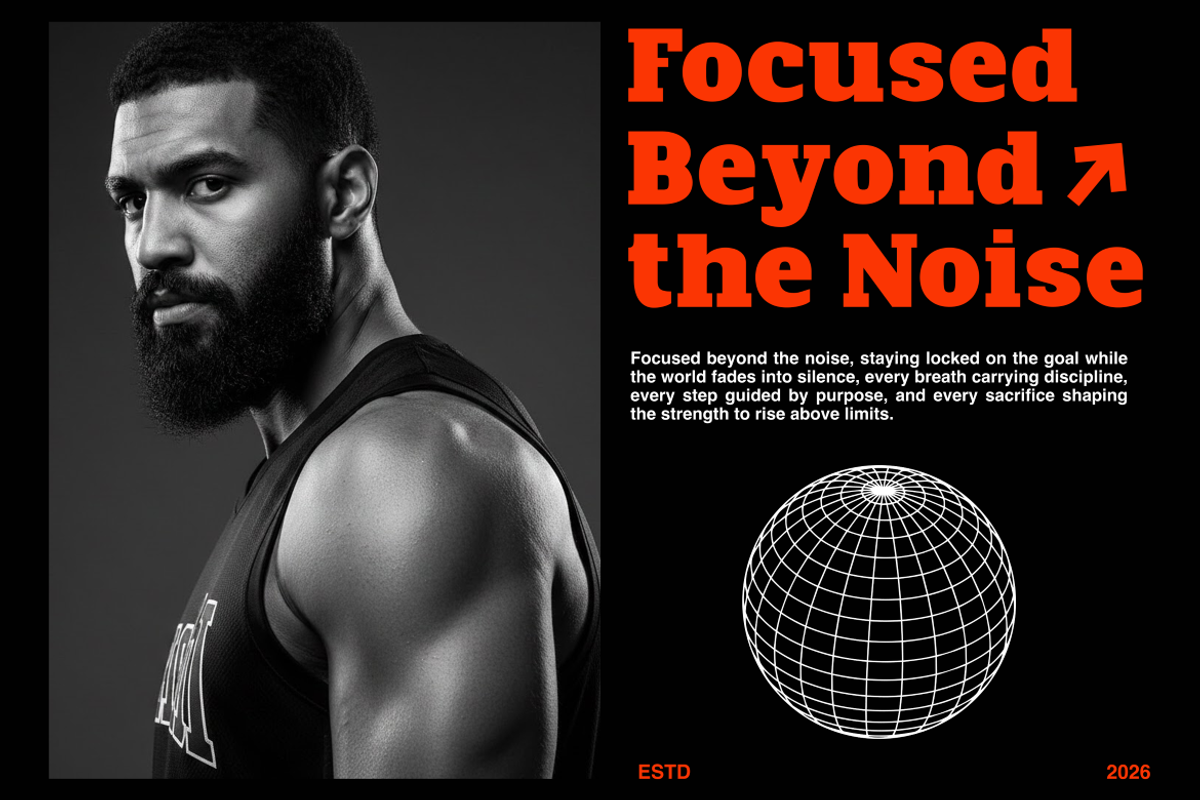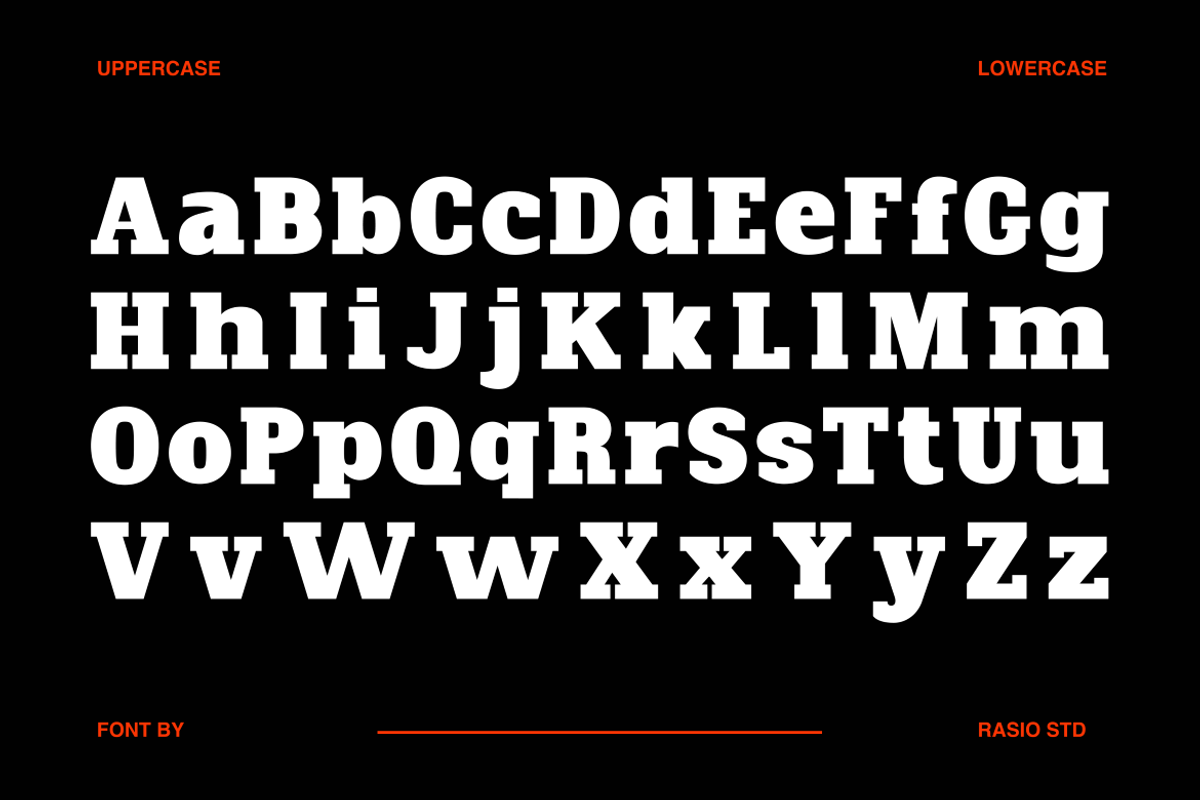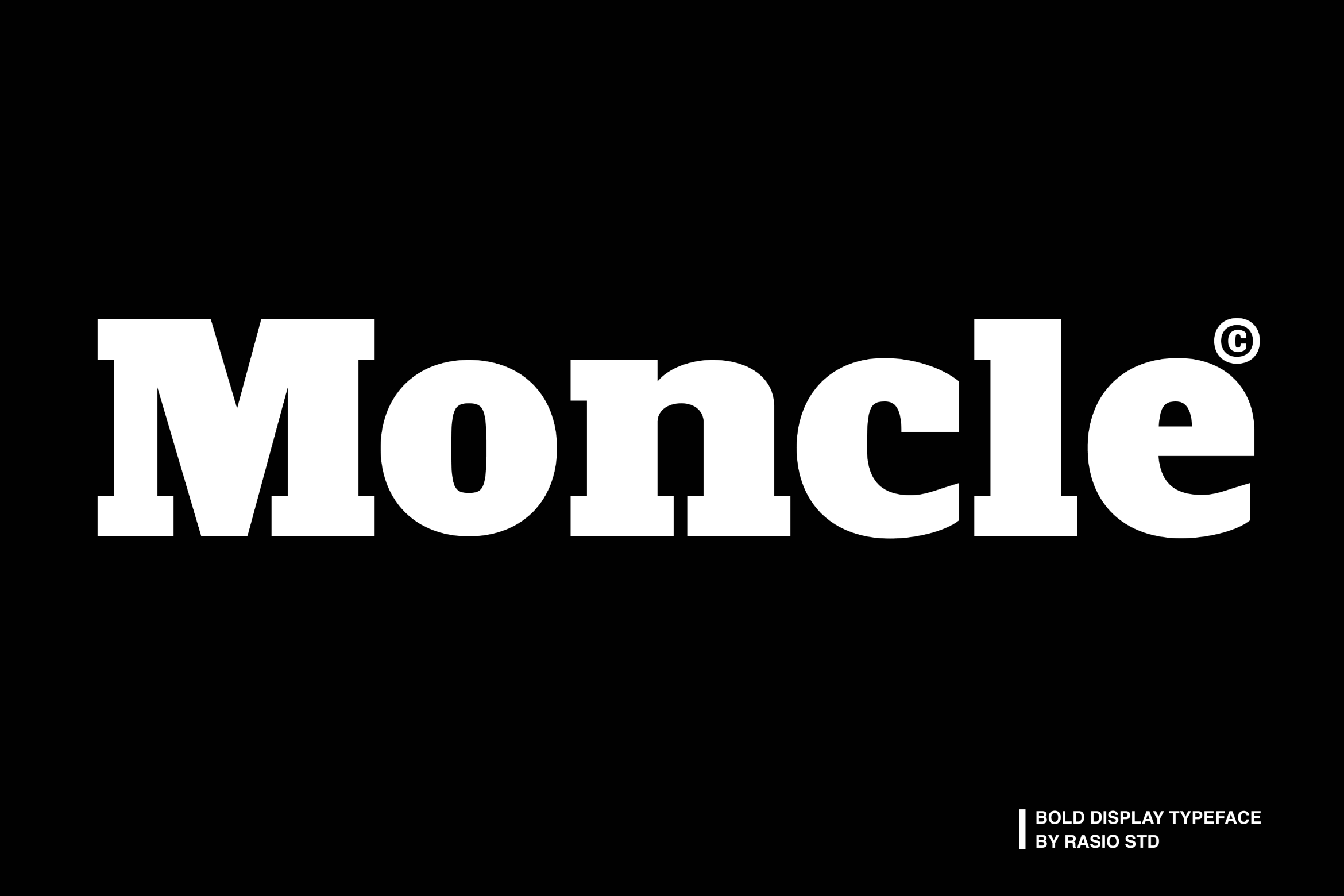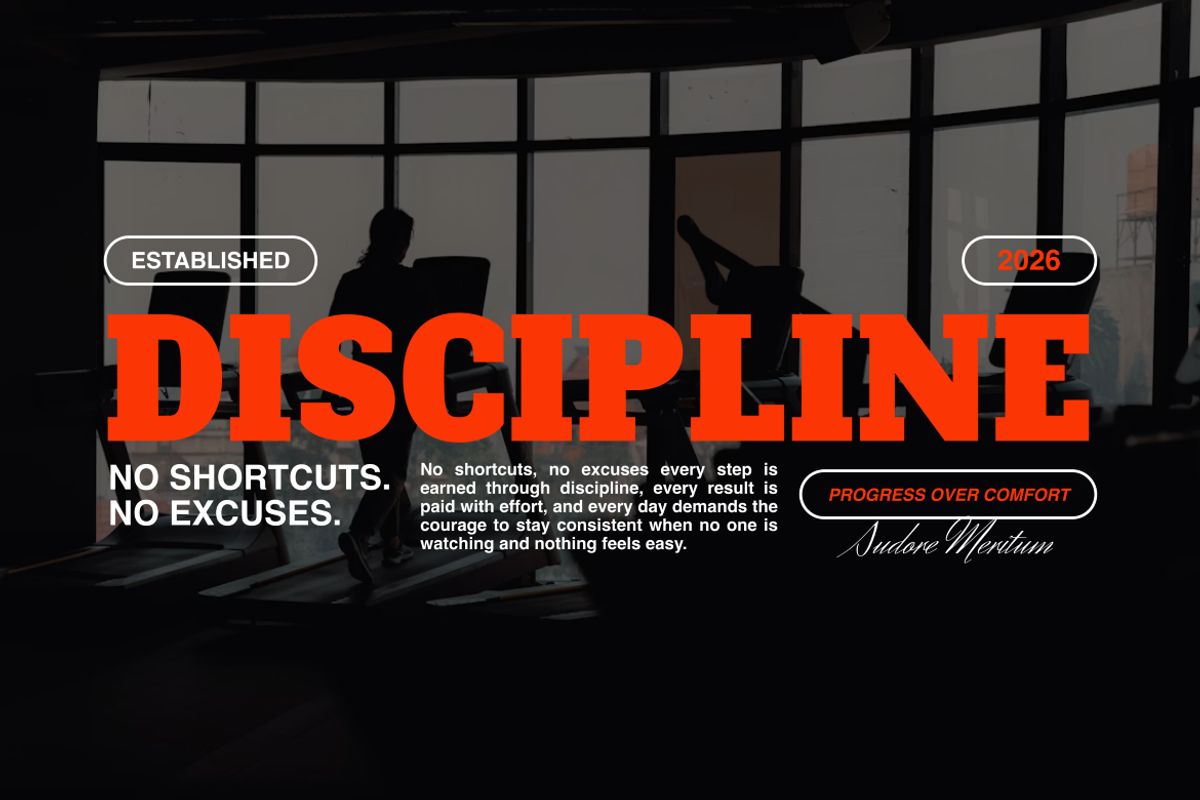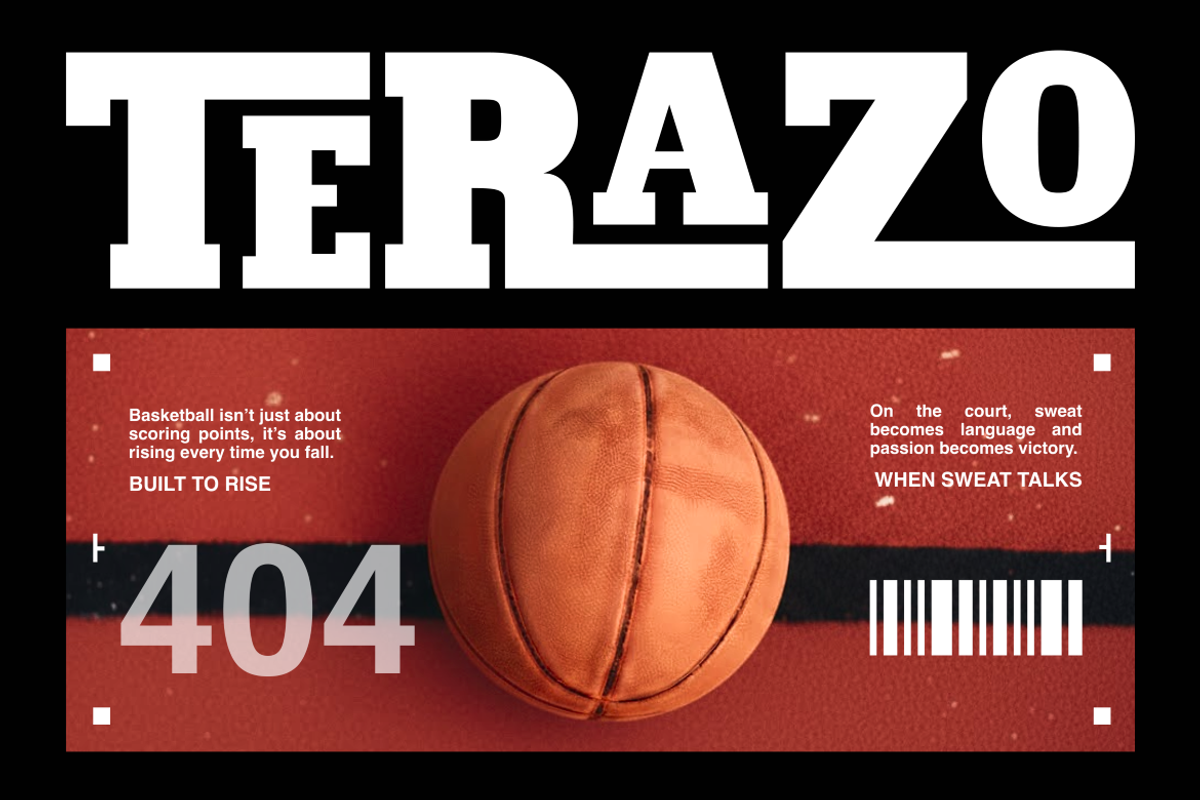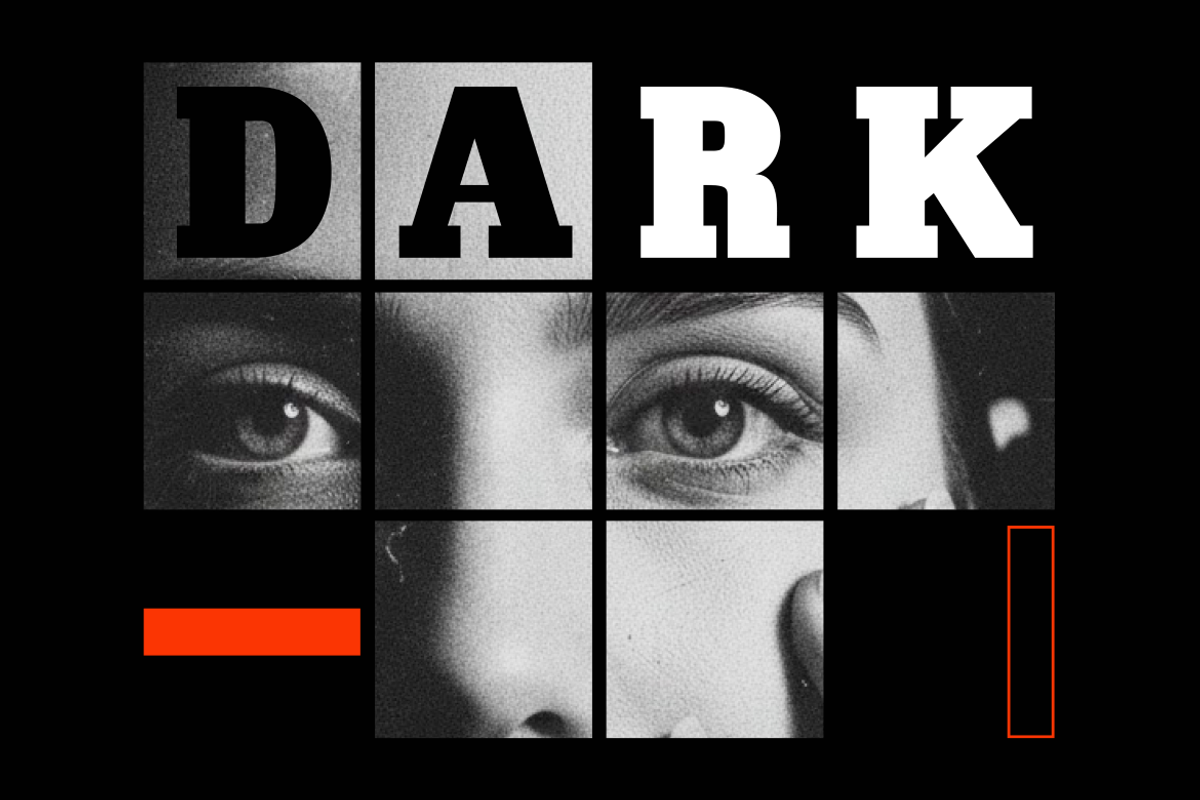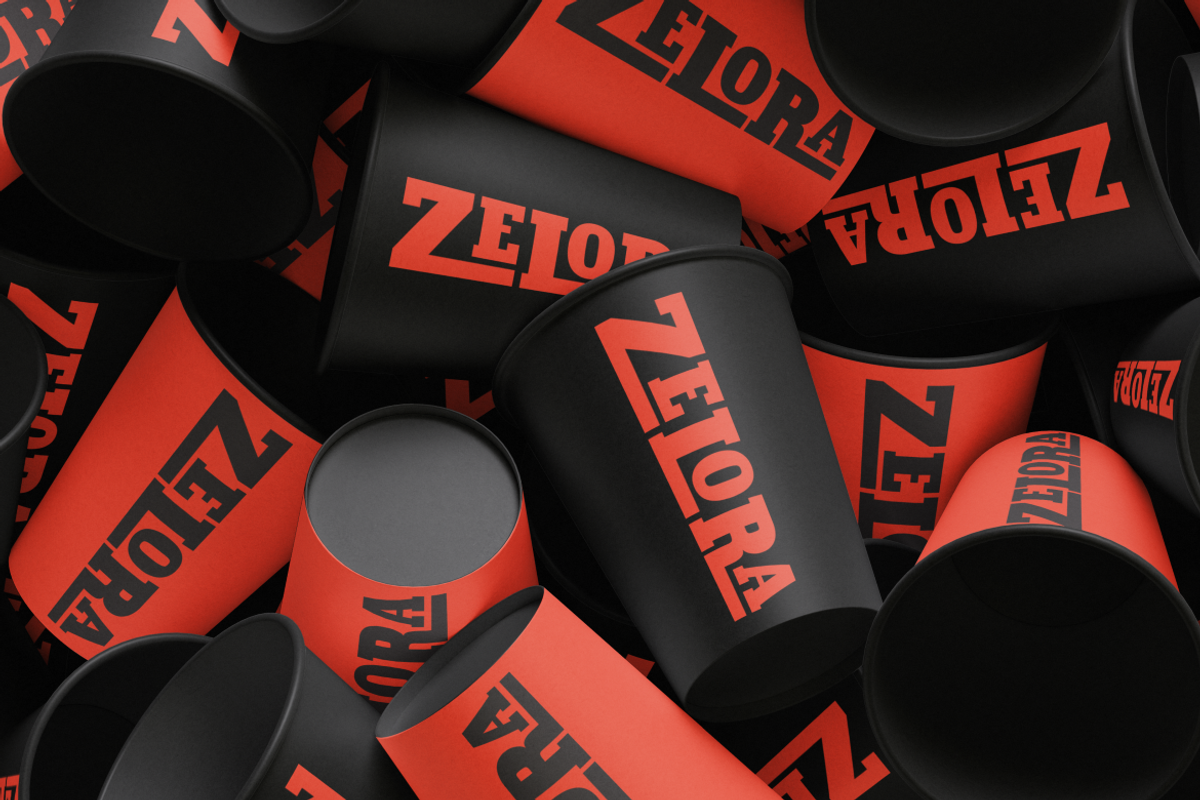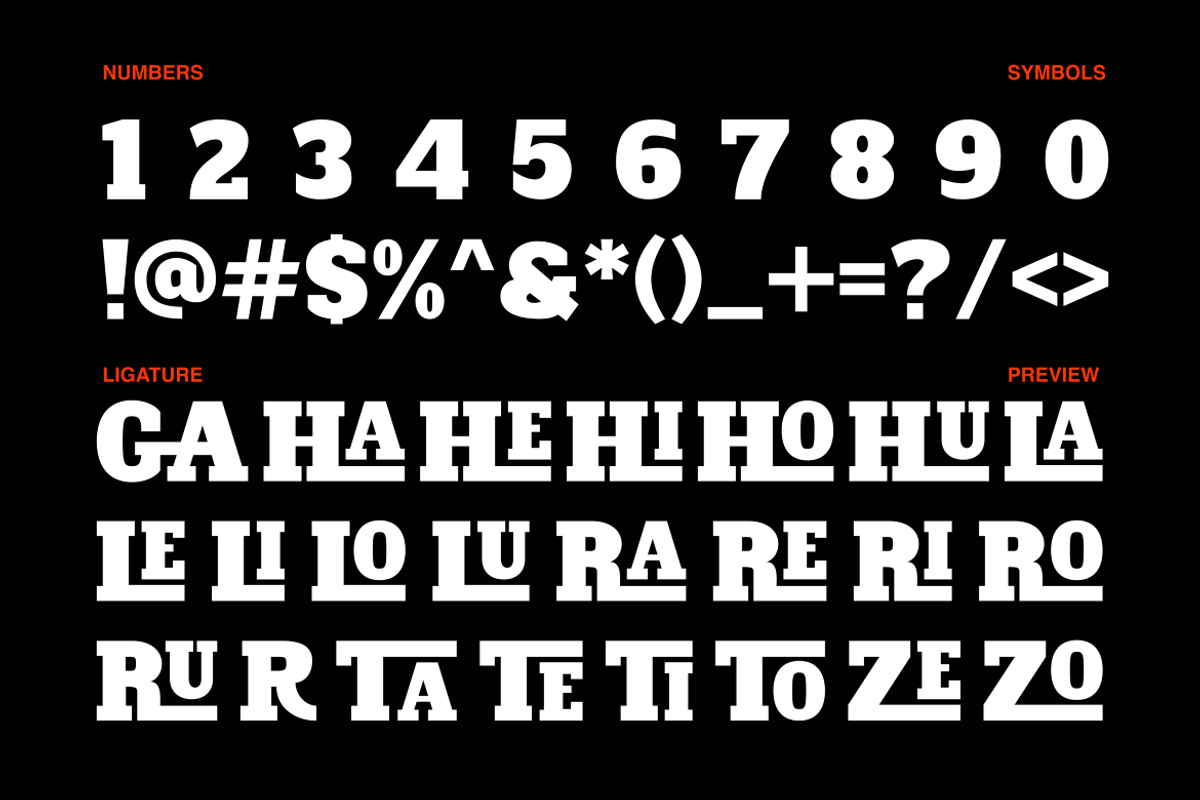
Moncle Bold Display Typeface Font
Moncle is a bold display typeface featuring heavy letterforms, strong contrast, and a confident typographic presence. The design emphasizes thick strokes, solid shapes, and clear structure, creating a powerful visual impact that commands attention. It includes uppercase, lowercase, numerals, and punctuation with balanced spacing and consistent weight.
Relevance and Use Cases is perfect for bold branding systems, poster designs, editorial headlines, magazine covers, campaign visuals, book covers, and graphic compositions that require strong emphasis and visual authority. It works especially well for projects that aim to communicate power, seriousness, or dramatic tone through typography, where the text itself becomes the main visual element.
- Bold display construction with heavy strokes and solid proportions
- Strong serif forms that create a confident and authoritative tone
- Clean, sturdy shapes designed for high visual impact
- Consistent stroke weight for stability and clarity at large sizes
- Spacing optimized for headlines, posters, and statement typography
- Brand identity systems that require a bold, confident, and authoritative voice
- Poster designs, campaign visuals, and large-format graphics
- Editorial headlines, magazine covers, and dramatic layout compositions
- Book covers and visual storytelling projects with strong typographic focus
- Social media graphics and promotional materials that demand attention
Bold, strong, and confident Moncle makes your message stand out